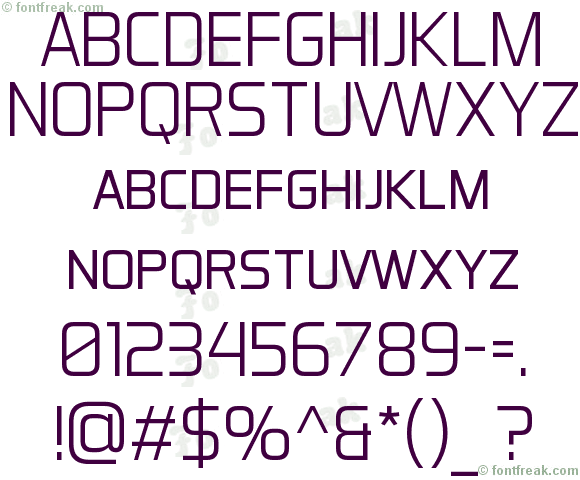
Aero Matics Display Bold
Aero Matics Display Bold, designed by Jayvee Enaguas, is a striking display font that falls under the category of bold sans-serif typography. This font captures attention with its robust stroke weight and strong geometric shapes, making it an excellent choice for projects that require a modern and assertive appearance. The visual characteristics of Aero Matics Display Bold include clean lines with minimal contrast, providing a uniformity that enhances legibility while maintaining a contemporary aesthetic. Its well-balanced spacing further contributes to a cohesive look, ensuring that each letter stands out without overwhelming the viewer.
This versatile font is ideal for various use cases, including eye-catching movie posters, dynamic branding materials, and engaging website headers. It also shines in promotional graphics for events or products, where its boldness can effectively convey excitement and energy. Additionally, small business owners can leverage Aero Matics Display Bold for restaurant menus or signage that requires a clear and impactful presentation.
The target audience for this font includes graphic designers seeking innovative typefaces for their creative projects, as well as content creators looking for a distinctive style to enhance their visual content. Small business owners who desire to make a memorable impression through their marketing materials will also find this font highly appealing.
What sets Aero Matics Display Bold apart is its unique blend of modernity and functionality. Its bold presence commands attention while remaining versatile enough to fit various design contexts. For those interested in enhancing their design toolkit, Aero Matics Display Bold font free download offers an opportunity to incorporate this distinctive typeface into their projects, making it a valuable asset for anyone in the creative field.